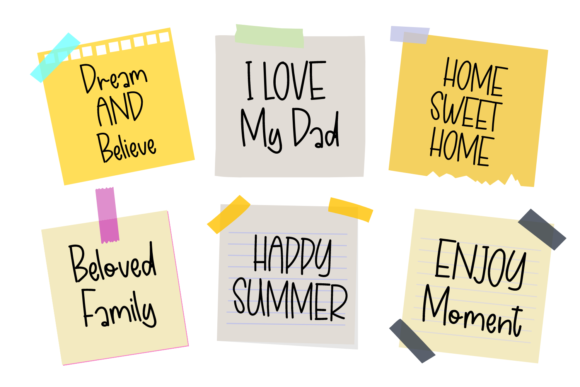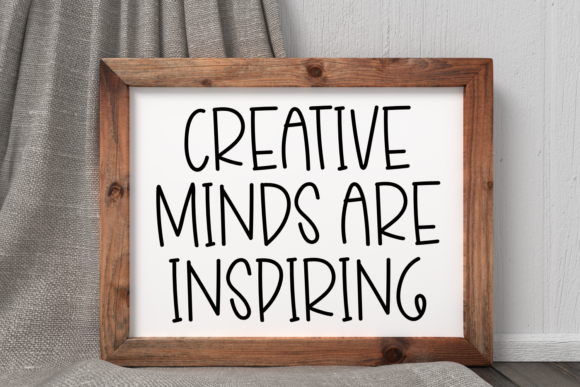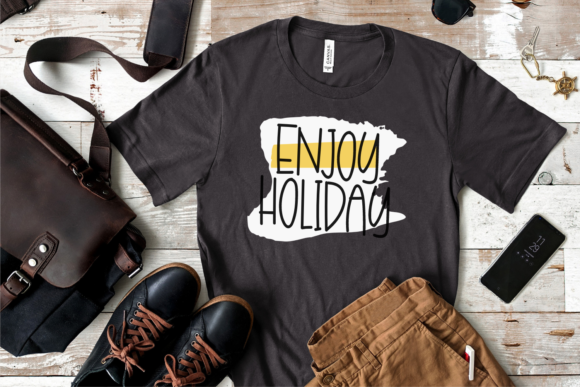
About My Notebook Font
My Notebook is a lightweight handwritten font that is perfectly suited for traditional media and web posting. It is fantastic for crafters and graphic artists alike. Playful and inspiring, it will make a great addition to any creative project, be it inspirational wall posters or brand promotions.